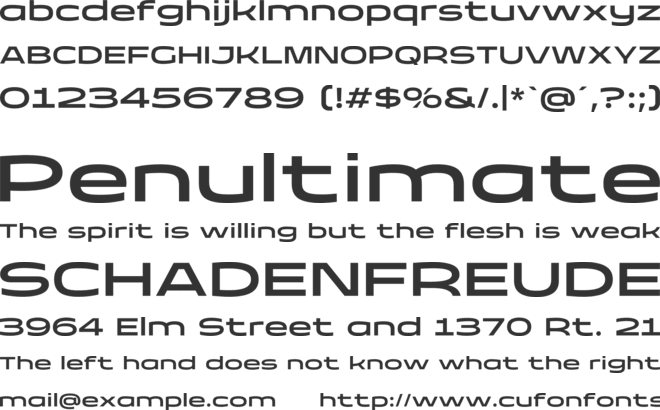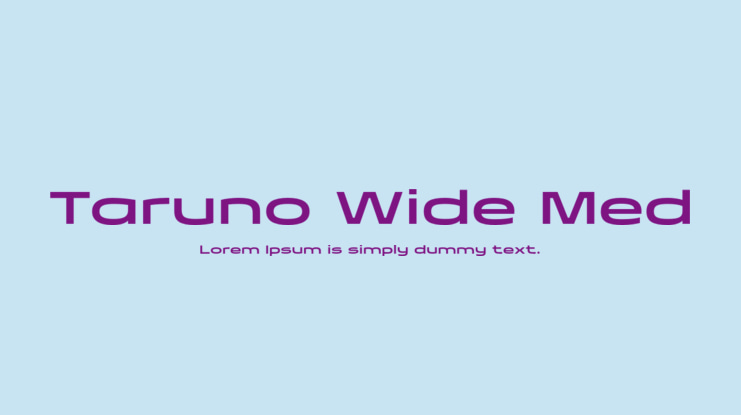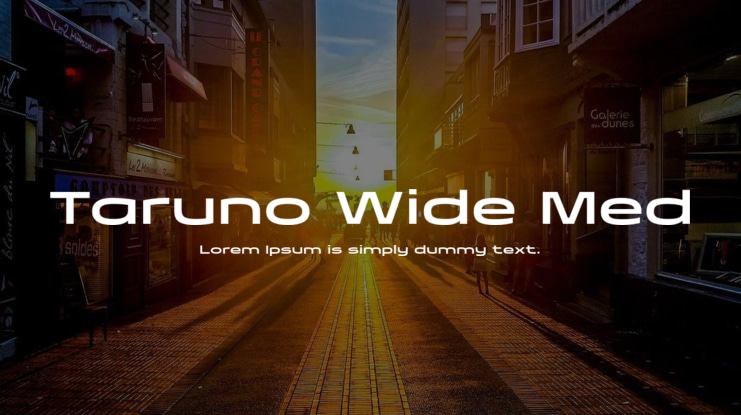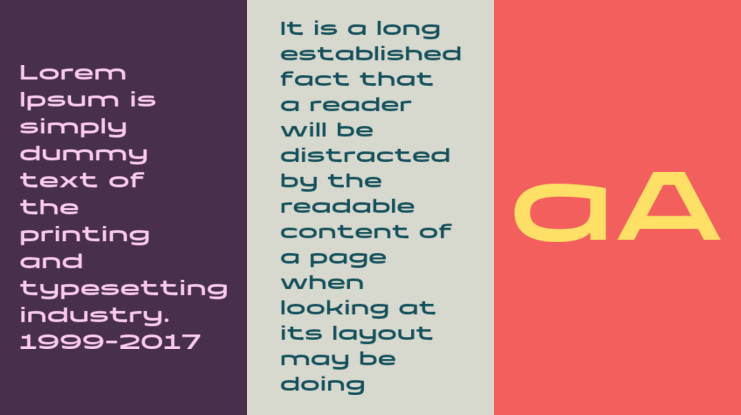
Taruno Wide Med Font Family
Arwan Sutanto
Taruno Wide is an expanded display font that effortlessly evokes an aggressive yet elegant vibe with a modern twist. Choosing this font is a stellar solution for classy design projects that demand to leave a strong and professional impression.